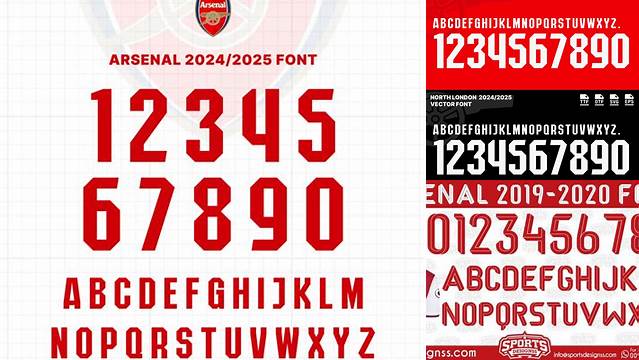
Alright, football fanatics and design enthusiasts! Today, we're diving headfirst into the world of the Arsenal font 2026, and guess what? I'm going to show you how to snag that sweet free download! Whether you're a die-hard Gooner looking to spice up your fan art, or a designer looking to incorporate the iconic Arsenal style into your projects, this is the place to be. We'll cover everything from the font's history and design nuances to how to legally and safely get your hands on it. So, buckle up, because we're about to embark on a typographic journey that'll have you yelling 'COYG' in no time!
Arsenal FC's Typography Through the Years
Guys, the Arsenal font has seen some major transformations, reflecting the club's evolution both on and off the pitch. It's more than just a collection of letters; it's a visual representation of Arsenal's identity, history, and aspirations. The current font, which we're affectionately calling the Arsenal font 2026 (even though it's not technically named that), is a modern, clean, and bold typeface that screams 'power and precision.' Think about it: every time you see it on the players' jerseys, on the Emirates Stadium signage, or in official club communications, you're instantly reminded of the Gunners' legacy. The previous fonts, while also representing the club, might've had a different feel, perhaps with more elaborate serifs or a more traditional look. The transition to the current, sleek font symbolizes a move towards a contemporary and forward-thinking image. And, it makes perfect sense because it’s easier to read and looks better on screens! It's all about readability in the digital age. The evolution of the font reflects the club's adaptation to modern design standards and digital media. This is particularly important as Arsenal strives to maintain a strong presence across various online platforms, including social media, their website, and digital marketing campaigns. The choice of font plays a crucial role in ensuring that the club's message is conveyed effectively to a wide audience. From the retro vibes of the old fonts to the bold statement of the current one, the evolution of the Arsenal font mirrors the club's continuous journey. It’s like a visual timeline of Arsenal’s story, you know?
Key Characteristics of the Modern Arsenal Font
The Arsenal font 2026 – or whatever we're calling it – is characterized by its distinctive features. We're talking about a typeface that's both assertive and elegant. The letters are designed with a strong emphasis on readability, making sure that the message is easily understood in any context. The font typically features clean lines, uniform strokes, and a bold weight, which gives it a powerful presence. The spacing between letters and words is carefully considered to enhance readability and visual appeal. This attention to detail is what separates a generic font from one that truly embodies a brand’s identity. It needs to be versatile and work well in a range of applications, from headlines and body text to logos and merchandise. The designers always consider how the font will look at different sizes and on various backgrounds. That's why the Arsenal font often incorporates a balance between straight lines and subtle curves, which helps it maintain a modern feel while retaining a sense of classic design. The overall aesthetic is one of sophistication and modernity, which aligns perfectly with Arsenal’s current branding strategy. The font's designers prioritize balance and visual harmony, ensuring that the letterforms work well together, which is crucial for creating a cohesive and visually pleasing design. The carefully considered proportions ensure that the font looks great in a variety of formats, from the large-scale signage in the stadium to the small text on merchandise.
Using the Arsenal Font in Your Designs
Designing Arsenal-Themed Graphics
Guys, when it comes to designing Arsenal-themed graphics, the Arsenal font is your secret weapon! Start by incorporating the font into the team's iconic colors – red and white (and sometimes a touch of gold). Use the font for your team's name, slogans, player names, and any other text-based elements. This is where the font really shines. Think about the context of your design. Is it for a social media post, a print poster, or a website banner? Adjust the font size, weight, and style accordingly to fit the platform. Also, think about how the font interacts with other elements like images and graphics. Make sure that they complement each other instead of clashing. One tip is to use the font in combination with imagery of the stadium, players, or iconic Arsenal moments. Create a cohesive and visually appealing design that captures the essence of the club. You can also create different layouts to test how the font works in different combinations. You might use the font for headlines and a different font for the body text. And again: experiment! Try different colors, sizes, and styles to see what works best for you. This is how you find what looks the best and also helps you to develop your design skills. Always use the font responsibly, adhering to the licensing terms, and respecting the club's branding guidelines. Your goal is to create graphics that are both visually appealing and respectful of the Arsenal brand.
Arsenal Font Alternatives and Similar Styles
So, what if you can't find the exact Arsenal font 2026? Don’t worry, there are tons of fantastic alternatives out there! You can find fonts that capture the spirit of Arsenal's branding. When you're looking for alternatives, focus on similar design characteristics. Arsenal’s branding often incorporates a bold, clean sans-serif font, so look for fonts that match those features. This will give you a design that has a similar feel to the official Arsenal font. Fonts like Montserrat, Gotham, and Open Sans are all popular options that share these qualities. These fonts are often versatile and can be used in a range of design projects. Try searching for fonts with similar characteristics to the Arsenal font to find alternatives. Check out websites like Google Fonts and DaFont, which offer a wide selection of free fonts. You can also look to find fonts that match the Arsenal font's specific characteristics. Some font foundries offer fonts that have a very similar appearance to the original, but they may come with different licensing terms. Always double-check the licensing terms before downloading or using any font. By exploring these alternatives, you can still achieve a similar visual aesthetic without running into licensing issues. With a little bit of research, you can find fonts that complement your design projects.